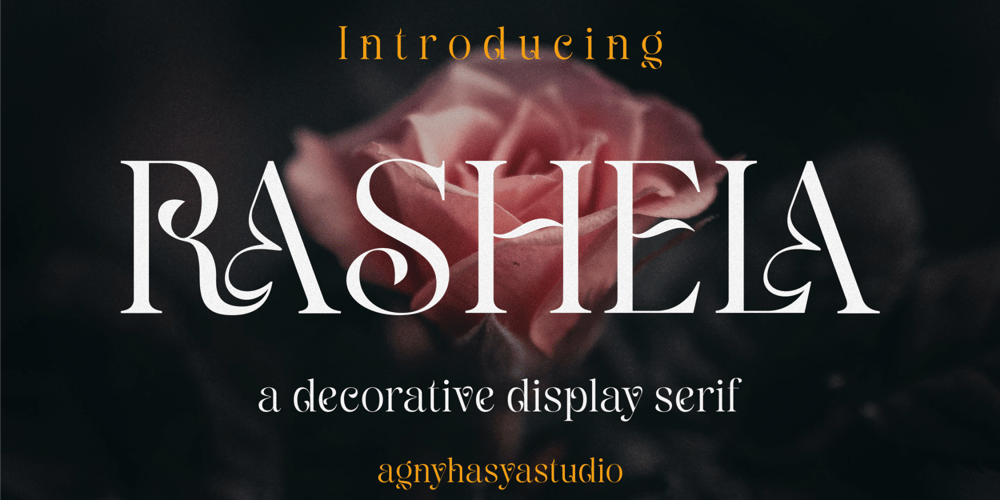
Rashela Font Family was designed by Firman Maulana and published by Agny Hasya Studio. Rashela contains 2 styles and family package options. Rashela is a Decorative Serif Display Font, Modern, Luxury, and Elegant Come with 2 (two) styles (regular & italic) and is created with glyph variations like alternates and ligatures. Perfect for your design projects like logos, branding, advertising, product designs, stationery, photography, art quotes, wedding designs, fashion designs, and more.Featured with Uppercase and Lowercase, Numeral and Punctuation, Multilingual Support, and Opentype Features.